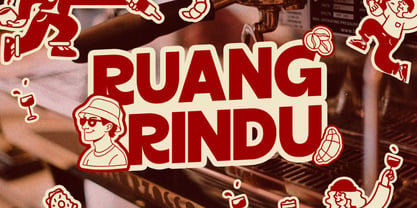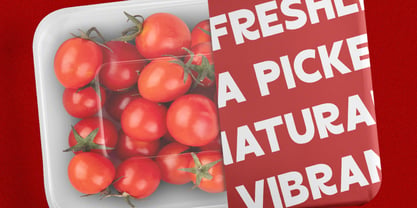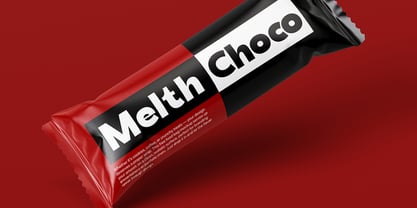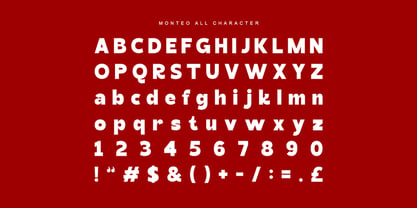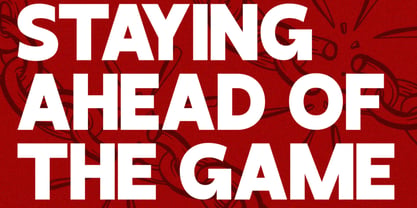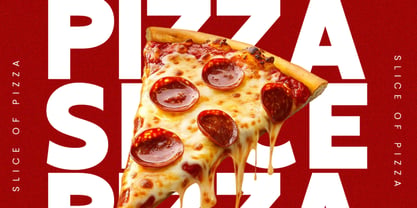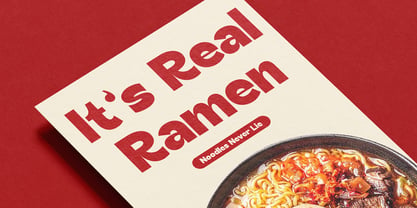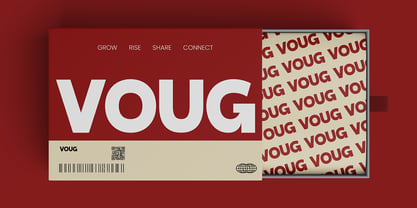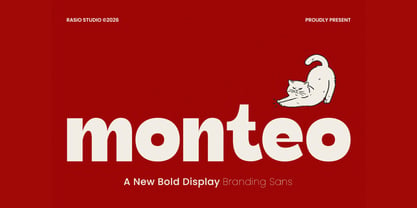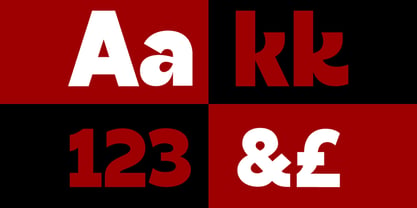
Monteo
La familia tipográfica Monteo fue diseñada por Fajar Indra y publicada por Rasio Studio. Monteo contiene 1 estilos. Más información sobre esta familia
Monteo showcases a chunky and confident sans serif style with playful curves, rounded edges, and strong geometric proportions. The font package includes uppercase and lowercase characters, numerals, punctuation. Its bold construction creates a clean yet energetic appearance suitable for eye-catching headlines, café branding, food packaging, retro-inspired posters, merchandise, and social media graphics.
Monteo is highly relevant for modern branding projects that require a strong and memorable visual identity. Its bold and rounded structure works especially well for café brands, coffee packaging, food promotions, streetwear labels, lifestyle campaigns, posters, YouTube thumbnails, social media banners, creative merchandise, and playful editorial layouts.